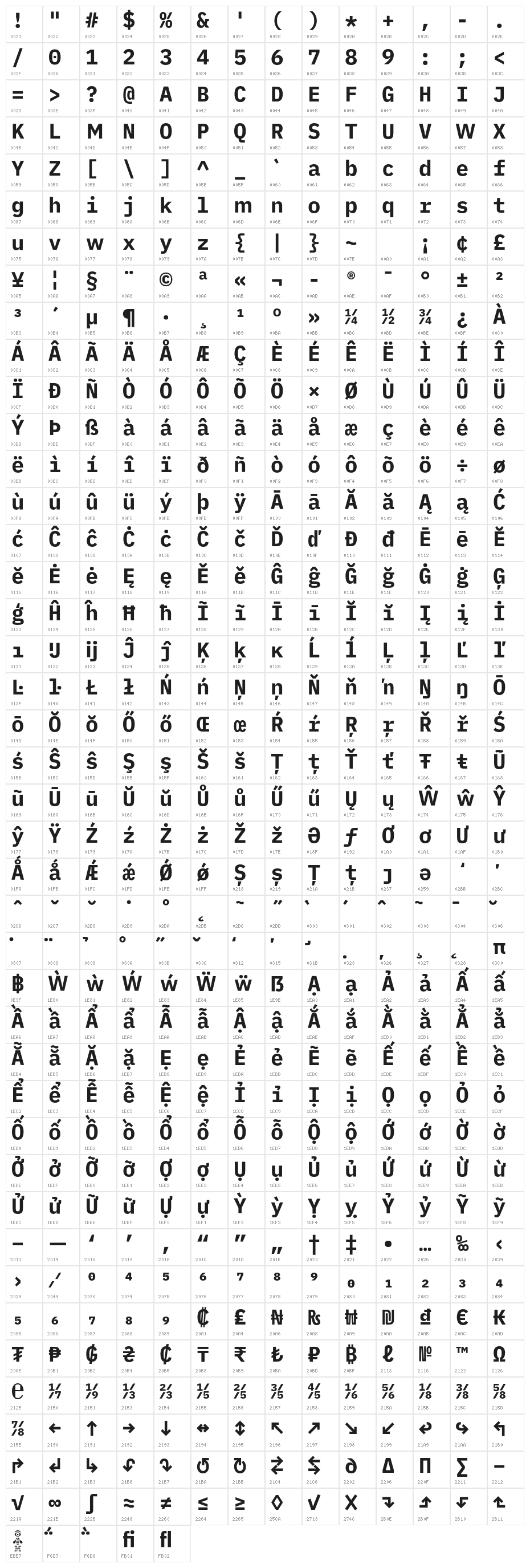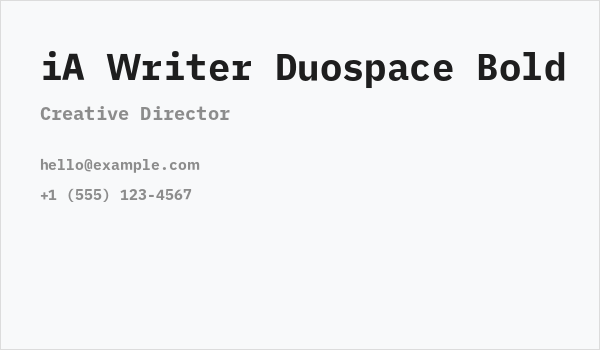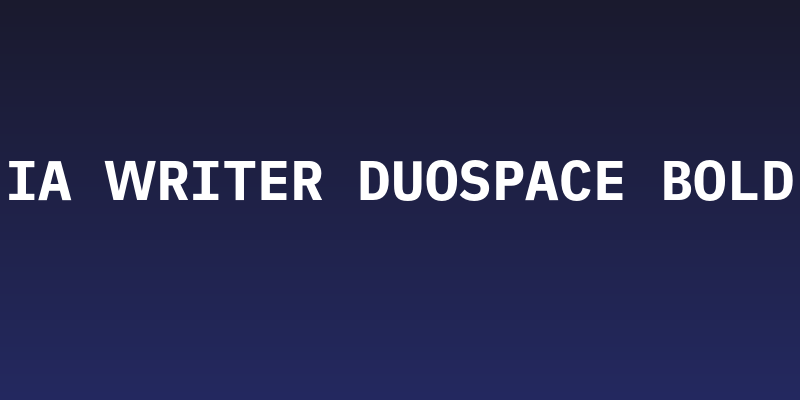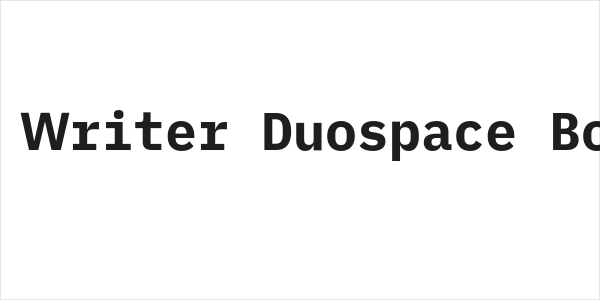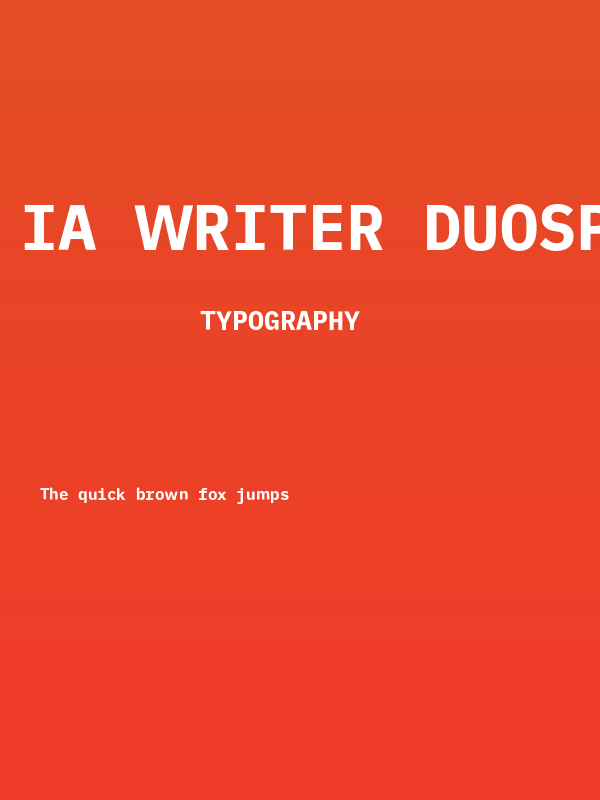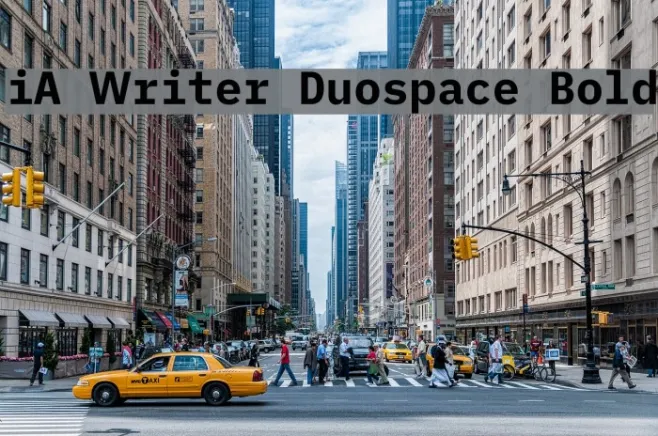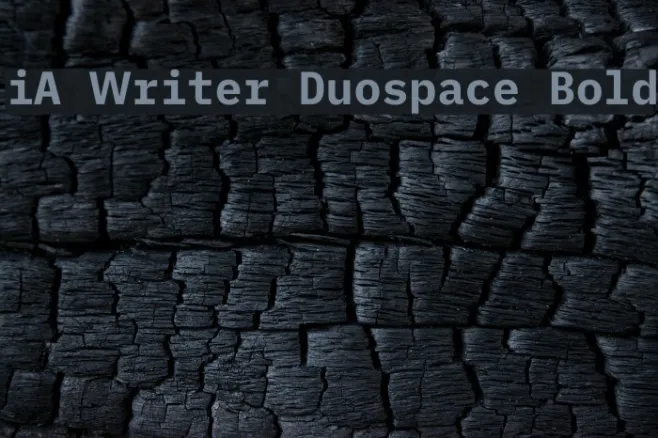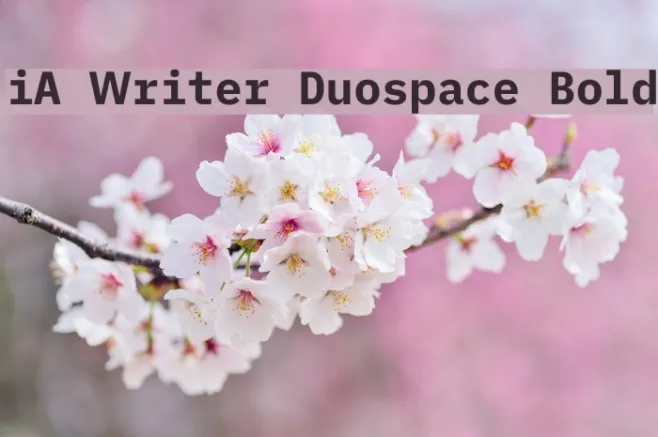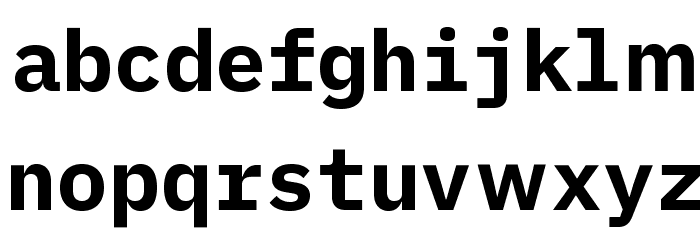
iA Writer Duospace Bold Font
iA Writer Duospace Bold Description
This font features a bold and structured design, characterized by its clean and modern appearance. The uppercase and lowercase letters are well-proportioned, with a consistent stroke width that provides a strong visual impact. The numerals are clear and easily distinguishable, making them suitable for various applications. Special characters are included, maintaining the font's cohesive style. The overall design is versatile, making it suitable for both digital and print media. Its readability and boldness make it ideal for headlines and attention-grabbing text.
| Proposed Projects | Ideal for headlines, branding, posters, and digital media where a strong presence is needed. |